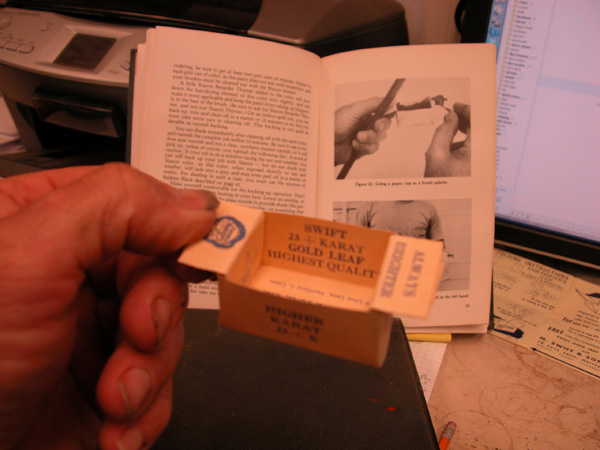
A book worth mentioning - Gold Leaf Techniques
Today I got book 2 of 6 that I bought so far this is the best $13 I have spent in my entire time of trying to do new stuff on glass. The book is called simply, "Gold Leaf Techniques" by Raymond J. Leblanc (revised by Arthur O. Sarti) this book is so full of information on doing tons of techniques using gold leaf on glass. The writing and illustrations are fantastic and is really helping me to understand the use of different mediums on glass. If you dont have it search it out as the book goes over everything that I could ever think of asking as someone newer to this profession.
Congratulation you now have one on the"KEYS" to gold leaf kingdom. One of my favorite pages is #45. It never fails to amaze me when some one stumbles upon something so old and yet so cool. For them it is truley an awakening experience.
When I was about 19 I went on the road as a snapper. One night in Monterey Cal. I found a florist shop that had a two tone gold window. Having never scene one before I called my dad and asked him how it was done. After a few minutes I was totally confussed.Man it would have been great to have that book then.
Re: A book worth mentioning - Gold Leaf Techniques
The first book I ever got on the subject was The Art of Glue Chipped Glass Signs by Bob MitcheII (keep your eyes out for that one). I was amazed at the signs, especially the old turn-of-the-century ones. That book reference the Gold Leaf Techniques book by Raymond LeBlanc as a resource on how to finish the glue chipped glass. I got that book and knew I had to try some of this craft myself. This is the first sign I ever made, and it was strictly made from reading the books.
The Gold Leaf Techniques book referenced Esoteric Sign Supply as a source for the required materials. That's when I met up with Rick Glawson. That was back in 1988. I took my first sign down there when picking up some supplies. Both Rick and Lola were pretty impressed at my first attempt. In hind sight...just lucky I guess. Still like makin' these, and never get tired of looking at them either.
Re: A book worth mentioning - Gold Leaf Techniques
I love this book, it has answers to many of the questions that I have been asking but written so I get the drift of what is going on. The book is brilliant and so well written. I am going to go and look for the glue chip one as well. I am still beside myself for what I paid for this book and everytime I open it I am like a kid in a candy store.
Re: A book worth mentioning - Gold Leaf Techniques
Way back in the horse and buggy days (well, almost) there was no one doing gold leaf in the little town where I lived. I bought that book and began teaching myself to do gold. It was really an experience....read a little - do a little, read some more - do some more....wipe everything off and start over.
For the shop, we use a 36" long 1/2" dowel with a rubber ball on the end.
Re: A book worth mentioning - Gold Leaf Techniques
I've still got mine! And haven't used it for well on to forty years. A Jugglers hard rubber ball on an aluminum rod which I got from Dick Blick as I recall - and for the same reason. LEFT-HANDED, although I'm ambidextrous with a brush.Being Left handed I think it's even more important.